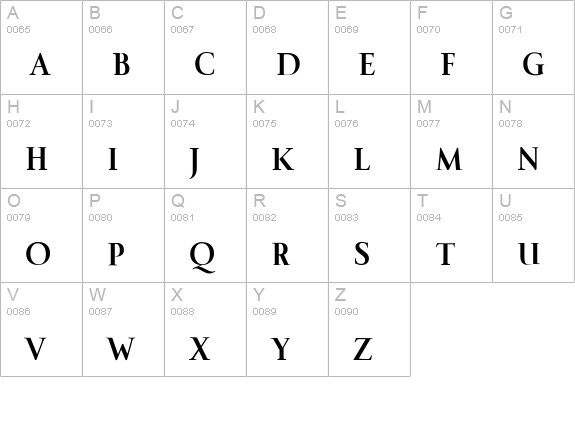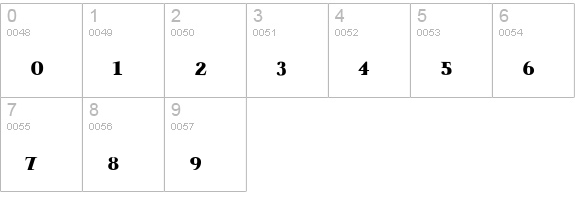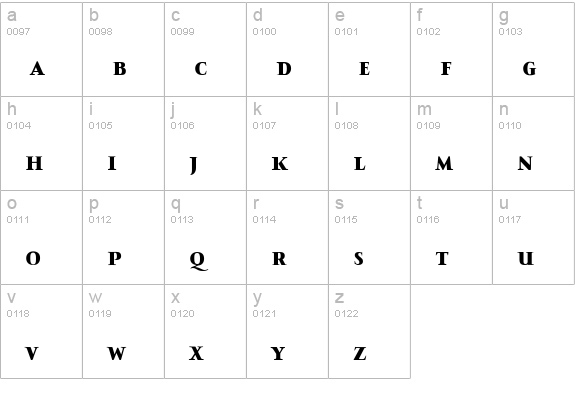
IndisposeSmallCaps-Bold Font Details
IndisposeSmallCaps-Bold is a strong, high-contrast variant in the IndisposeSmallCaps typeface family \xE2\x80\x94 well suited to headlines, attention-grabbing titles, and strong calls-to-action.
IndisposeSmallCaps-Bold is a striking and bold font that exudes confidence and strength. It is designed with small capital letters, adding a unique touch to any project. This font is perfect for creating eye-catching headlines or adding emphasis to important information. With its clean lines and sharp edges, IndisposeSmallCaps-Bold demands attention and makes a statement. Whether used in print materials, web design, or branding projects, this font is sure to leave a lasting impression. What's even better is that IndisposeSmallCaps-Bold is available for free! You can easily download this font from FontsMarket.com, a trusted source for high-quality fonts. With just a few clicks, you can have this powerful and versatile font at your fingertips, ready to elevate your designs. So why wait? Don't miss out on the opportunity to enhance your projects with IndisposeSmallCaps-Bold. Download it for free today at FontsMarket.com and let your creativity soar.